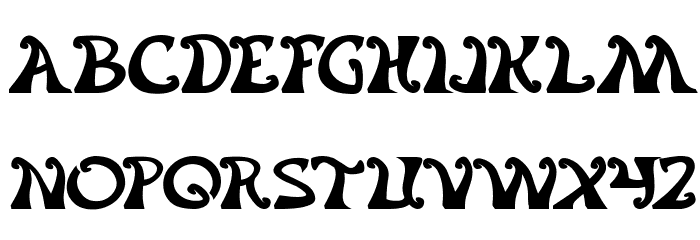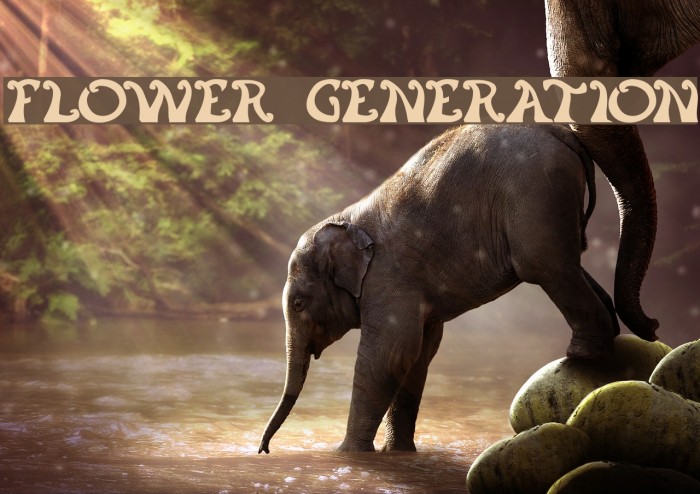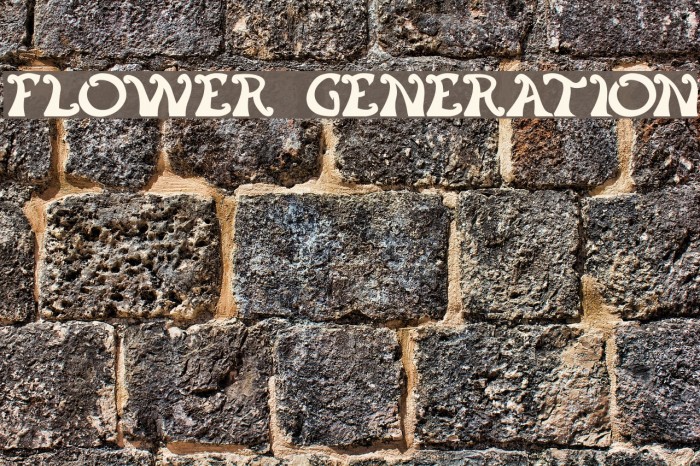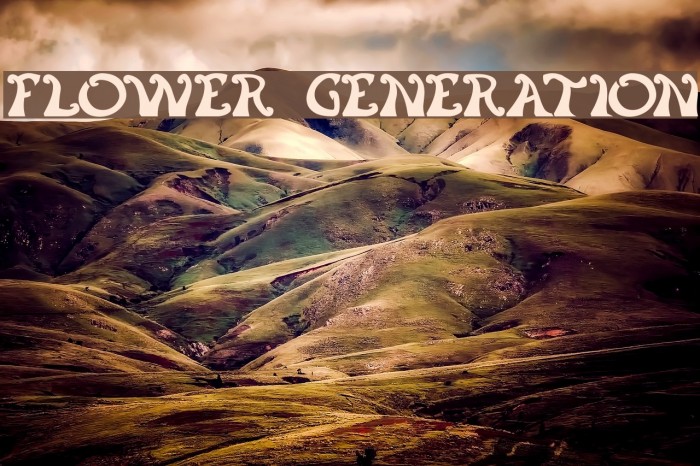
flower generation Font
This font features a unique and decorative style with a playful and artistic flair. The characters exhibit a bold and dynamic presence, with swirling and curving elements that add a sense of movement and creativity. The uppercase letters are particularly striking, with exaggerated serifs and flourishes that give each character a distinct personality. The overall appearance is both whimsical and elegant, making it suitable for projects that require a touch of artistic expression. The font's design is reminiscent of hand-drawn or calligraphic styles, yet it maintains a modern edge with its bold strokes and intricate details.
A bold, decorative font with artistic flourishes and a whimsical style.
- Proposed Projects: Ideal for creative projects such as event invitations, artistic posters, branding for creative businesses, or any design that seeks to stand out with a unique and playful touch.